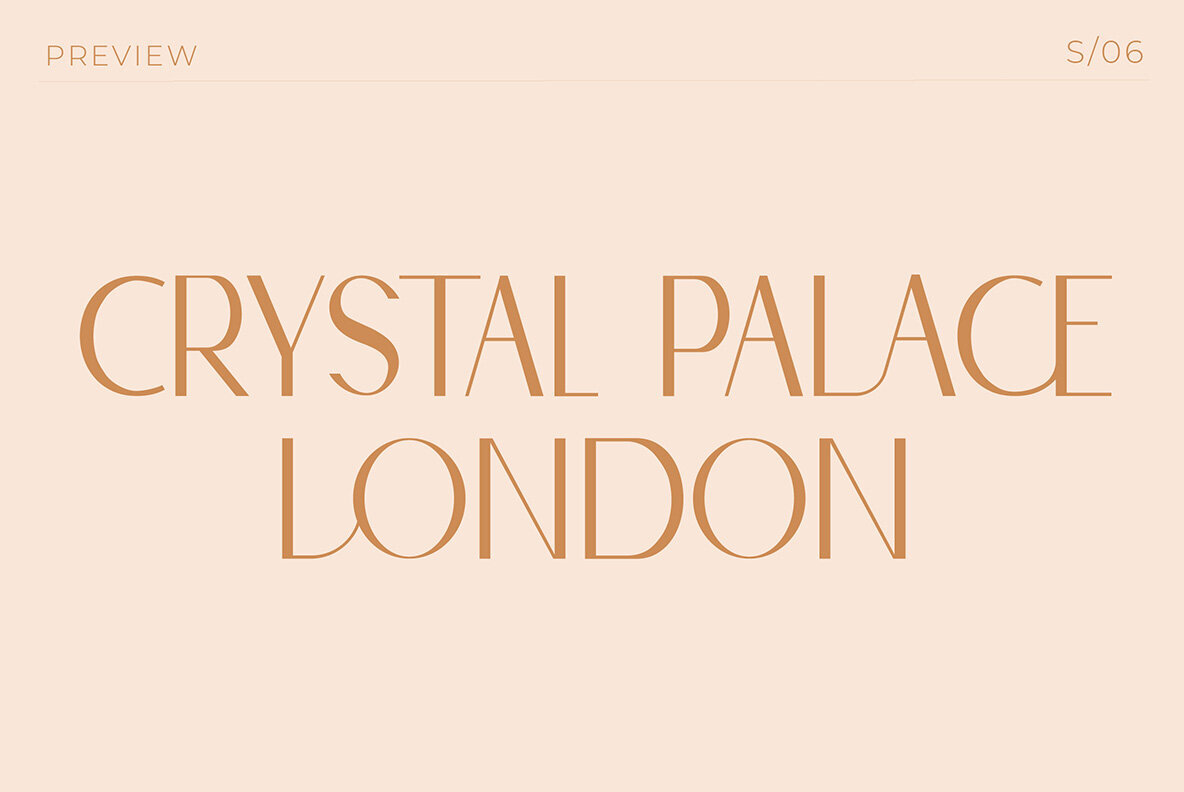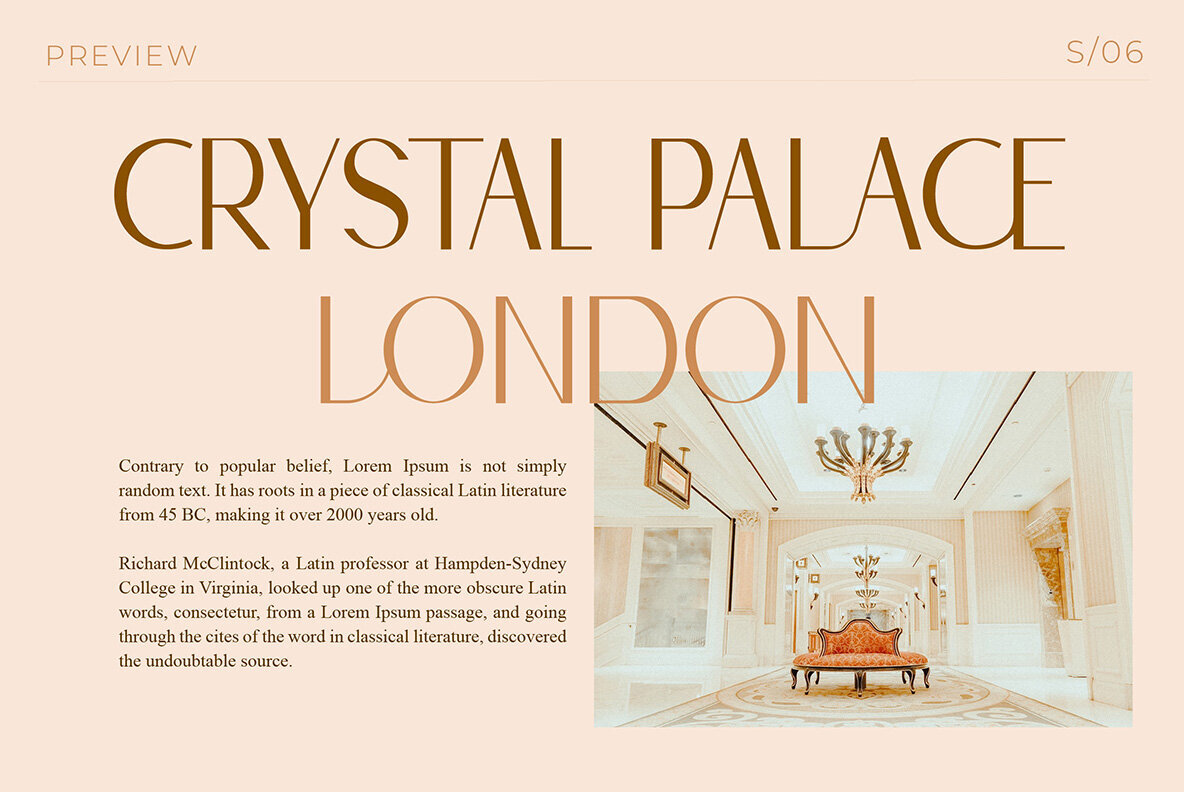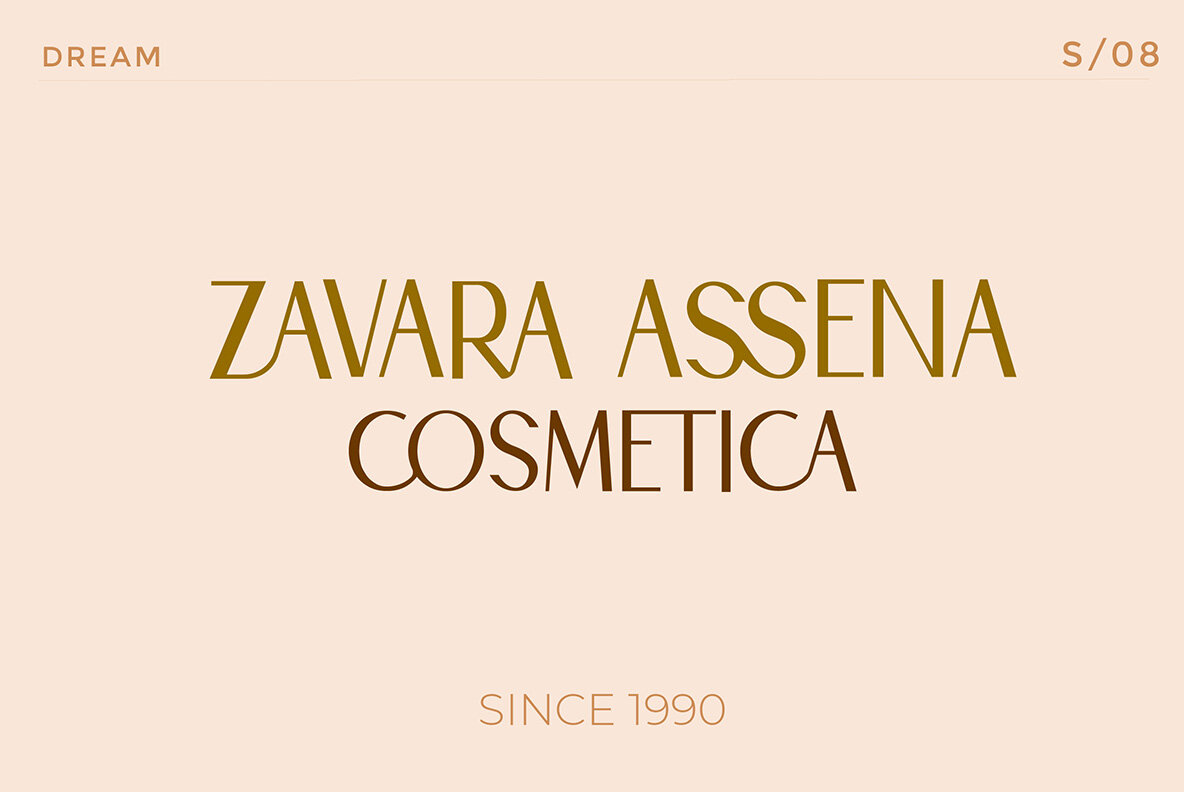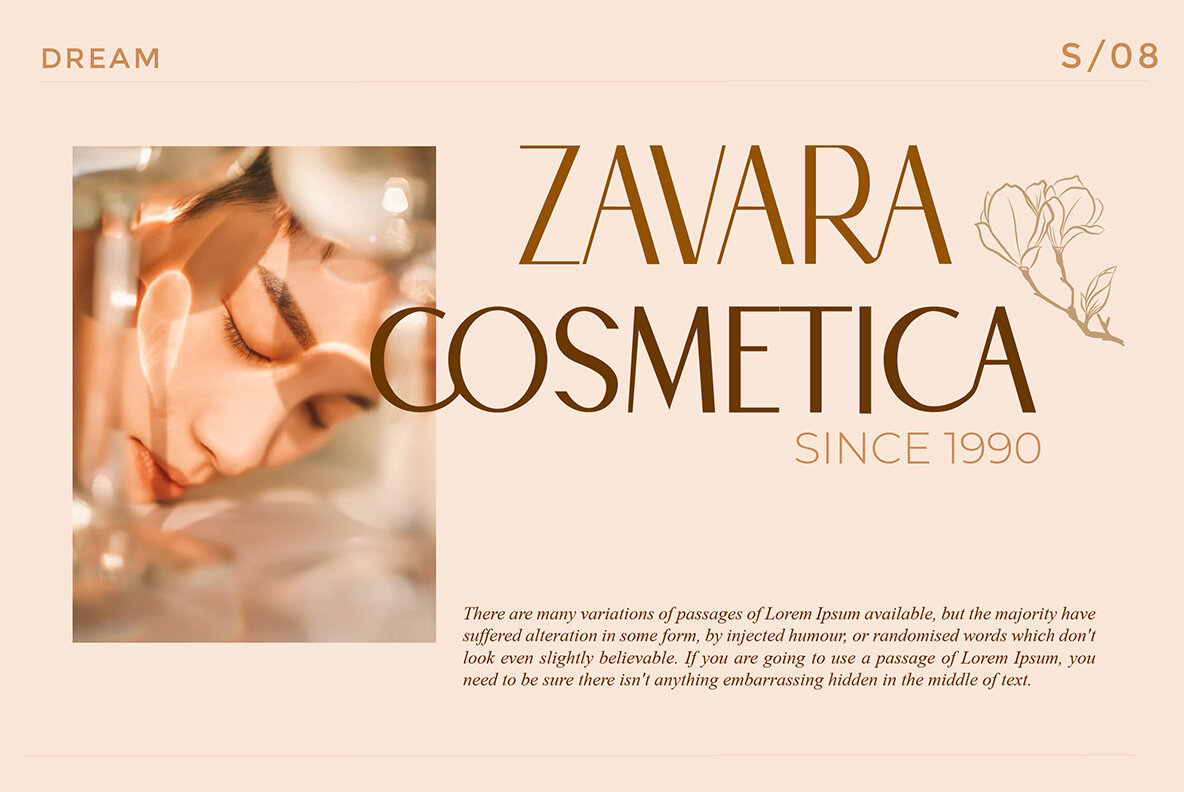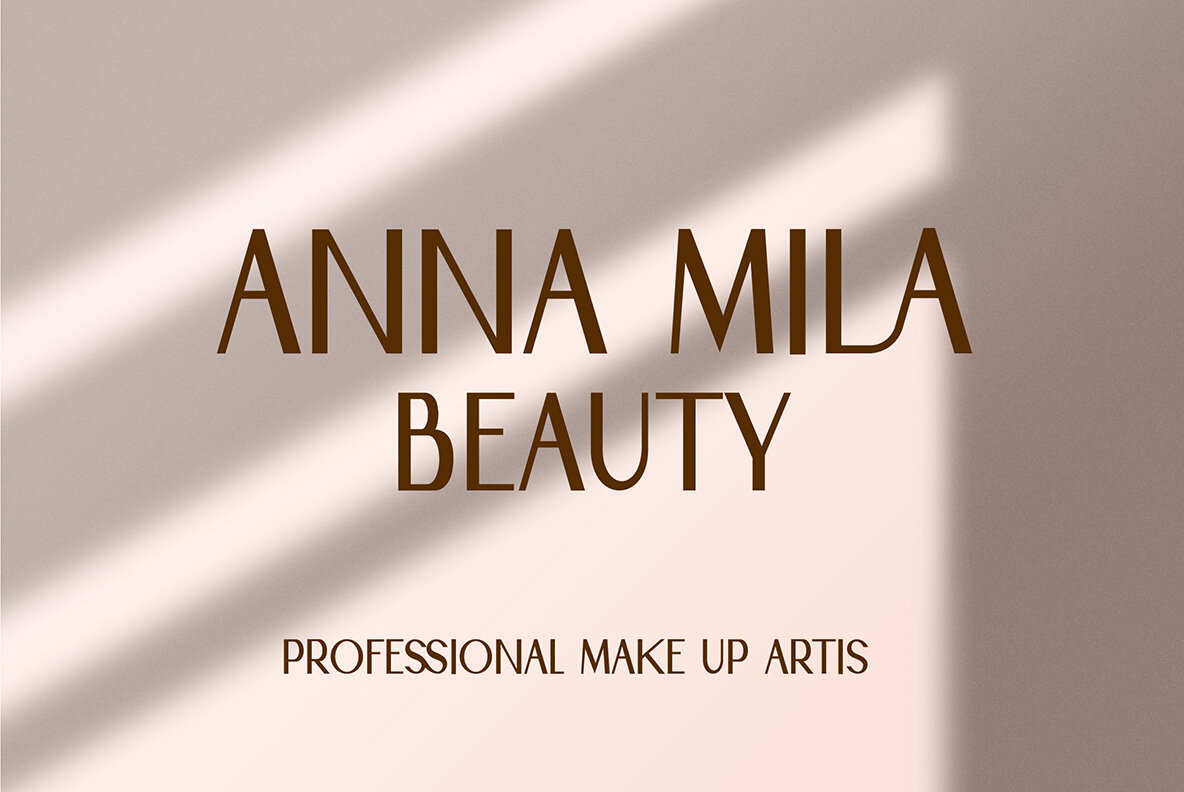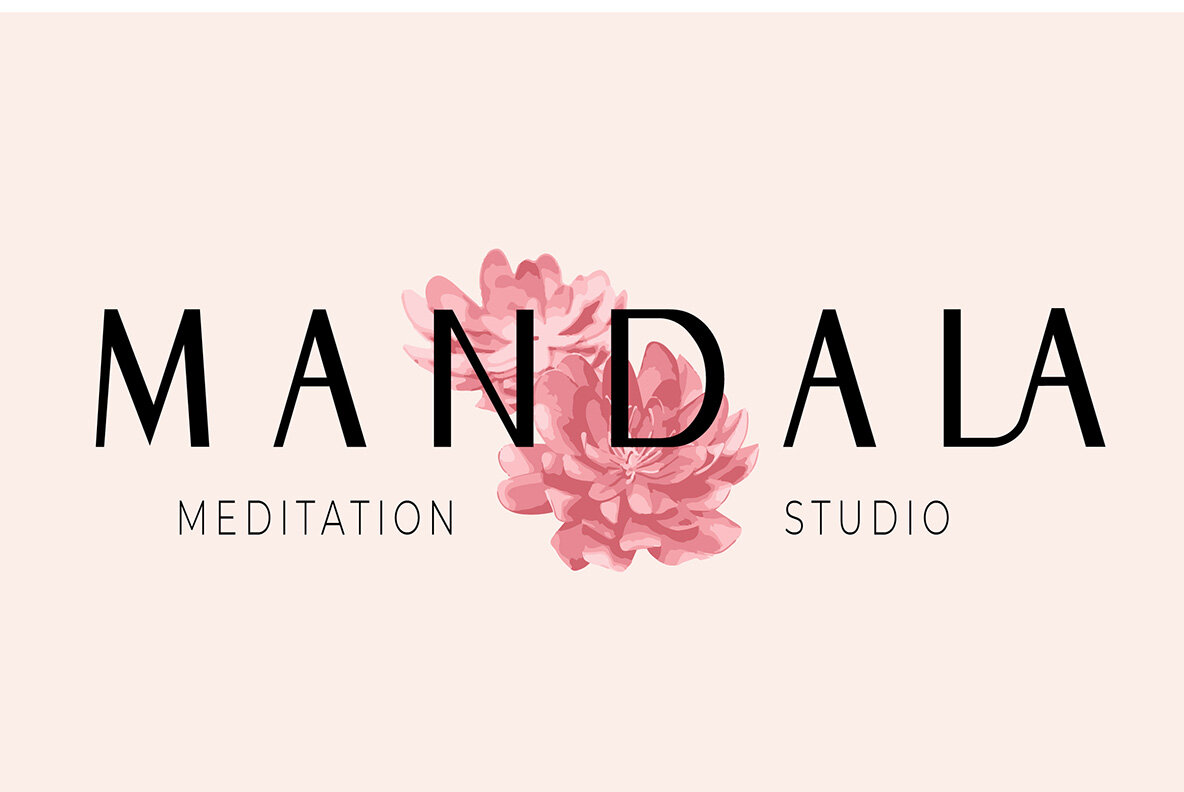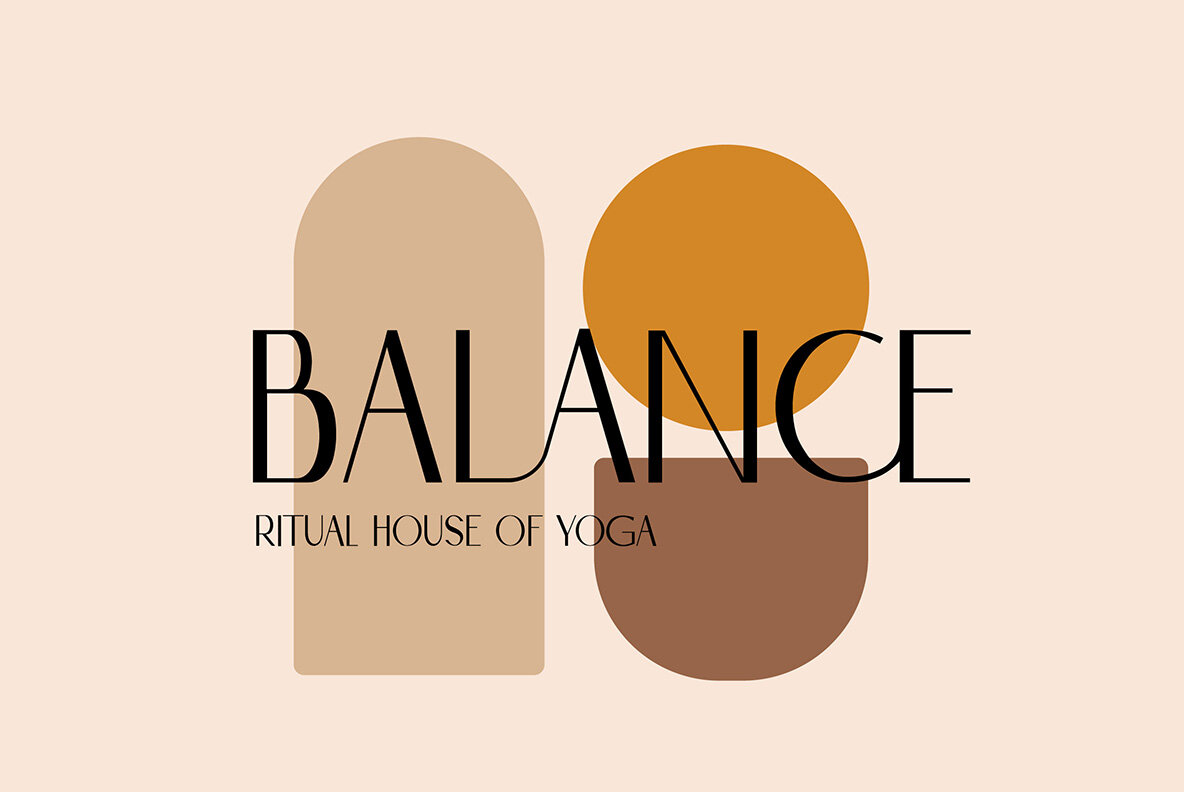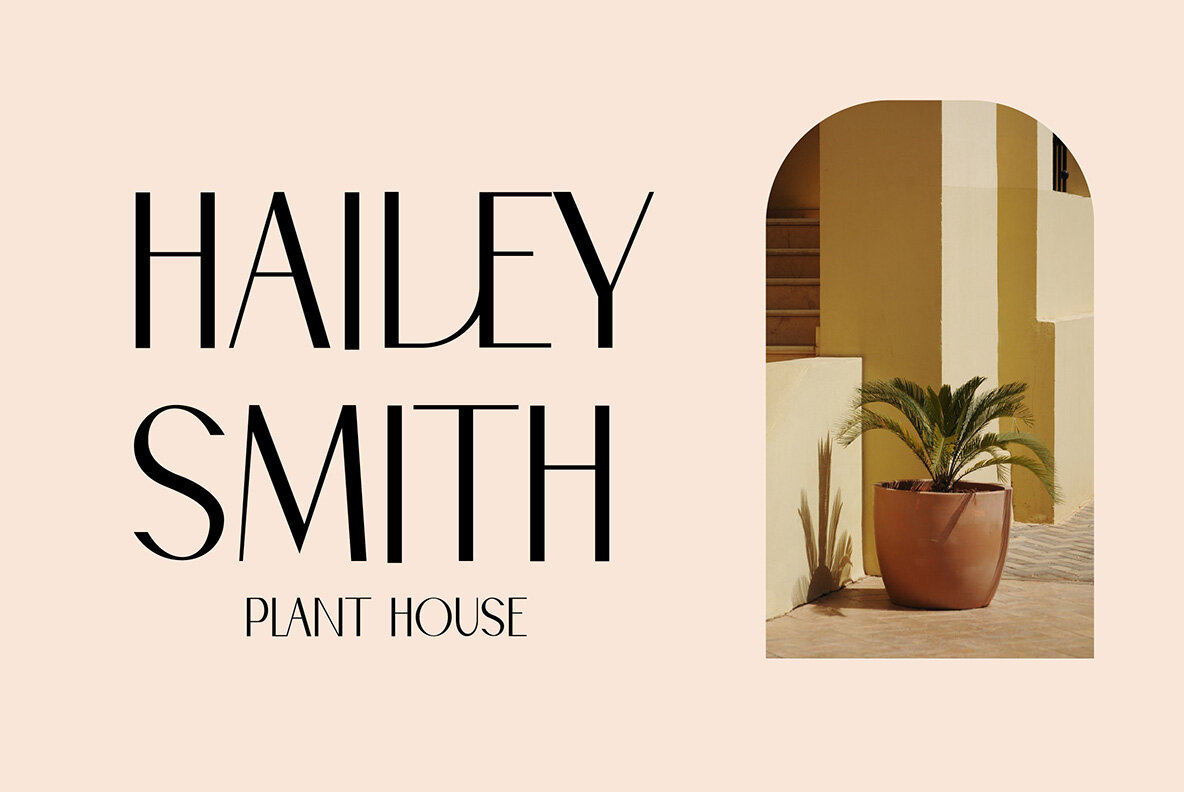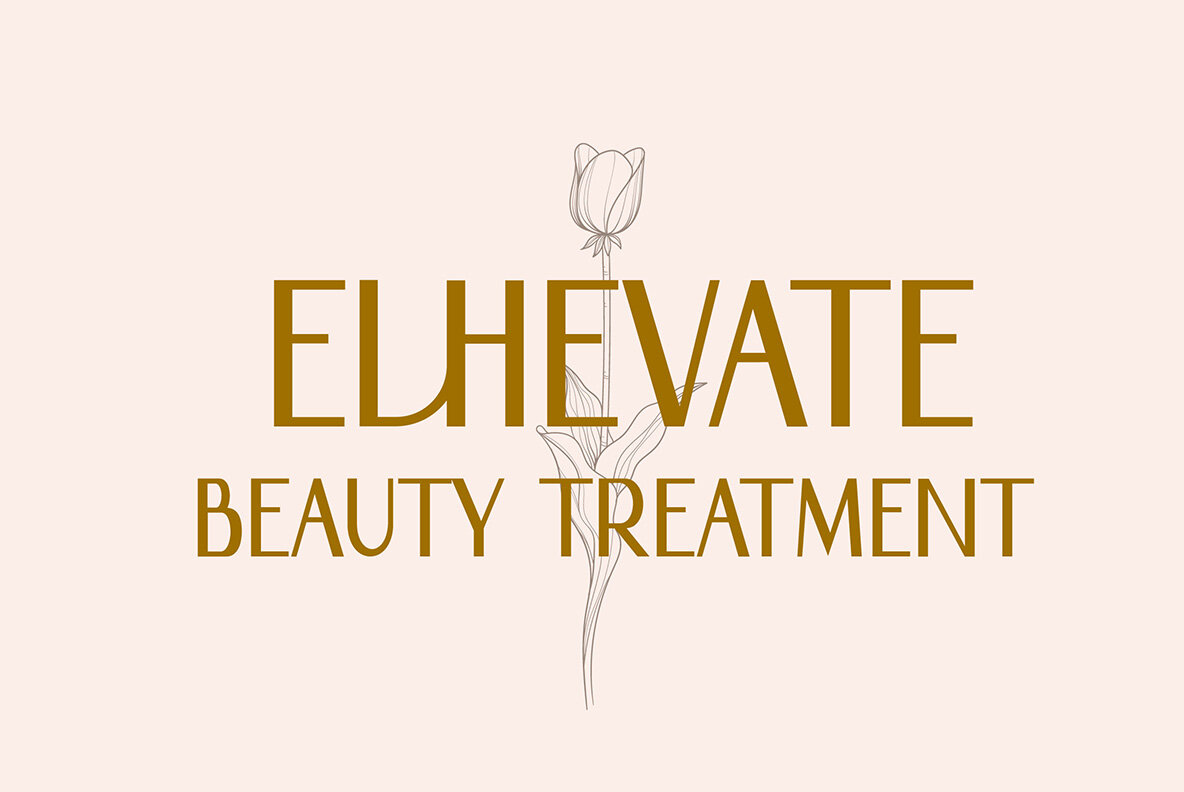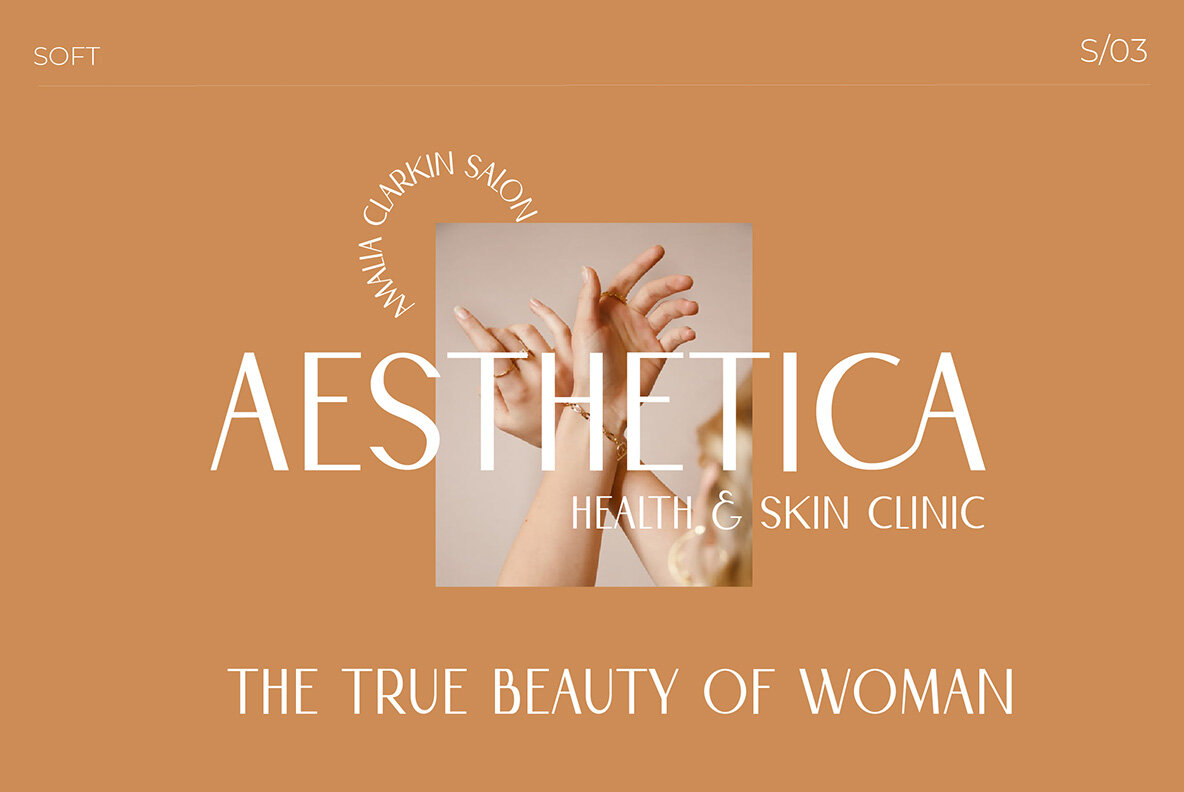
Levior Font
Levior is a classic modern font that is both stylish and unique with Narrow smooth curves and beautiful ligatures, tons of special alternative glyphs, ornament and multilingual support.
It's a very versatile font that works great in large and small sizes. Levior is perfect for branding projects, Logo design, Clothing Branding, product packaging, magazine headers, or simply as a stylish text overlay to any background image.
- Stylistic Alternates & Ligatures